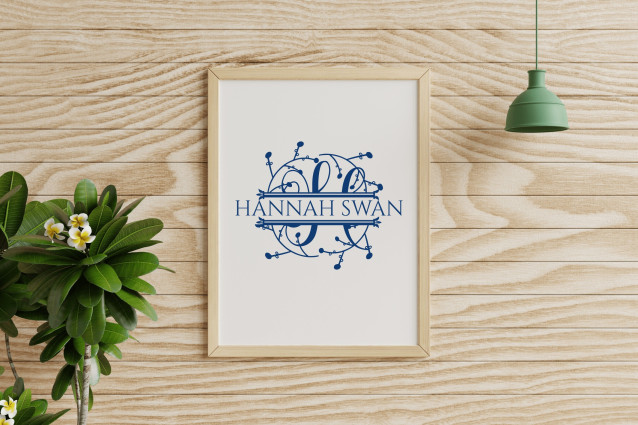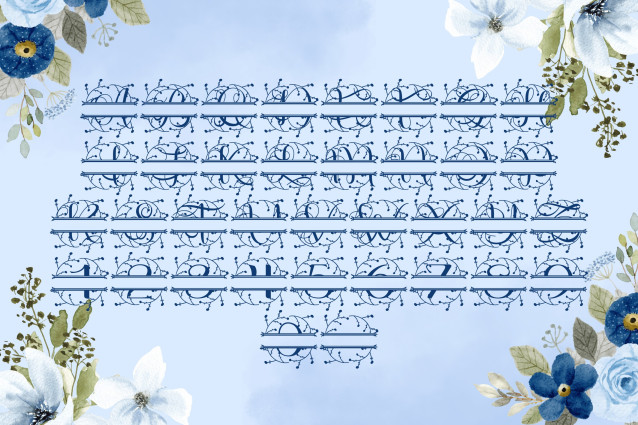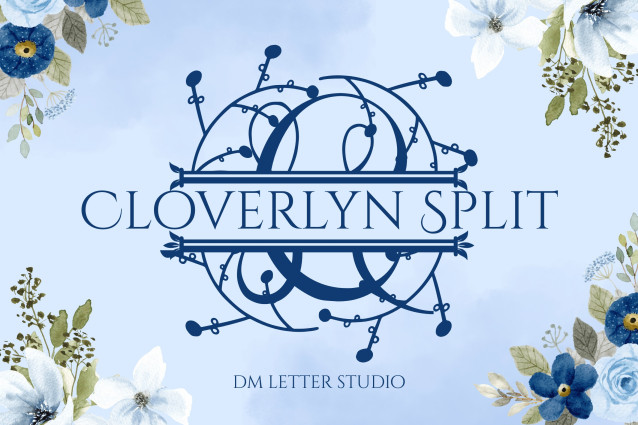
Cloverlyn Split Font
Cloverlyn Split Font is a refined serif split monogram font featuring uppercase letters divided with a clean horizontal space—perfect for personalizing with names or messages. Enhanced by soft clover and botanical elements, this font adds a fresh, romantic feel to Cricut projects, wedding monograms, custom gifts, and floral-themed branding.